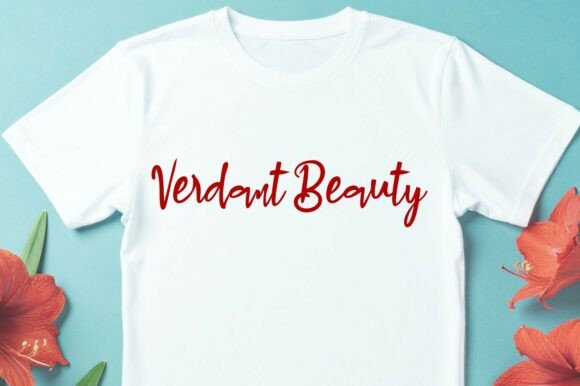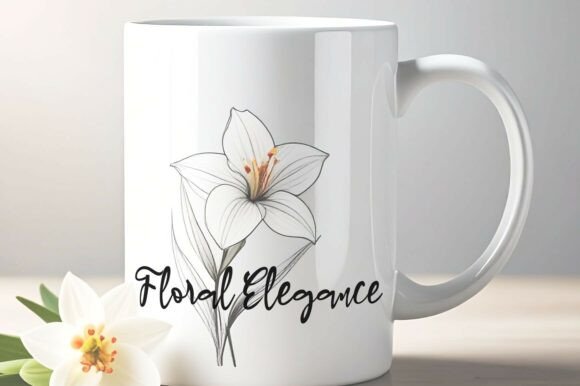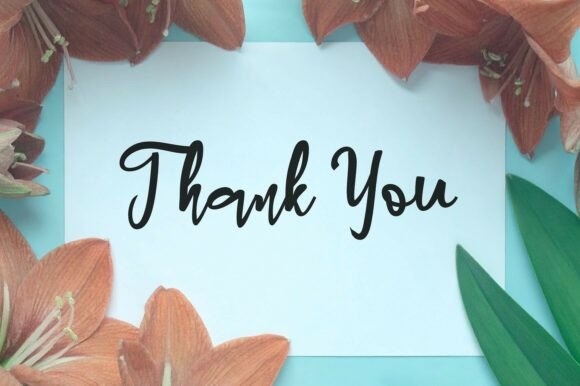
Discover the Elegance of Amaryllis Flower Font: A Beautifully Expressive Script Typeface
The Amaryllis Flower Font is a stunning script typeface that embodies the elegance and fluidity often associated with floral artistry. This beautiful font features dynamic, brush-like strokes with a lively baseline, giving it a playful yet sophisticated hand-drawn quality. In this article, we’ll explore what makes Amaryllis Flower Font unique, its characteristics, and the various uses it’s suited for.
What Makes Amaryllis Flower Font Special?
The Amaryllis Flower Font stands out from other script fonts due to its distinct characteristics. Here are a few reasons why it’s a great addition to any design or crafting project:
- Dynamic & Expressive: The varying stroke thickness and energetic flow of Amaryllis Flower Font make each word come alive, conveying a sense of movement and artistic flair. This feature makes it perfect for designs that require a touch of elegance and sophistication.
- Hand-Drawn Charm: The font’s hand-drawn quality gives it an authentic and personal feel, similar to a meticulously crafted signature or custom lettering. This unique feature sets it apart from generic digital fonts.
- Unique Character: Each letterform in Amaryllis Flower Font has distinct features that give the font a memorable and unique personality. This characteristic makes it an excellent choice for designers and crafters looking to add a touch of individuality to their work.
- Versatile Decoration: While Amaryllis Flower Font is clearly decorative, it maintains a level of legibility that allows it to be used effectively for more than just ornamental purposes. This versatility makes it suitable for a wide range of projects, from greeting cards to branding and packaging.
What is Amaryllis Flower Font Good For?
Amaryllis Flower Font is an excellent choice for various design and crafting projects, including:
- Floral and Botanical Designs: The font’s floral inspiration and elegant feel make it perfect for designs related to gardening, floristry, or botanical art.
- Greeting Cards and Stationery: Amaryllis Flower Font’s playful yet sophisticated quality makes it suitable for creating beautiful greeting cards, invitations, and stationery.
- Branding and Packaging: The font’s unique character and hand-drawn charm make it an excellent choice for branding and packaging designs that require a touch of elegance and sophistication.
- Digital and Print Media: Amaryllis Flower Font can be used in various digital and print media, such as magazines, blogs, and social media graphics, to add a touch of personality and style.
Tips for Using Amaryllis Flower Font
To get the most out of Amaryllis Flower Font, consider the following tips:
- Use it sparingly: Due to its decorative nature, it’s best to use Amaryllis Flower Font sparingly to avoid overwhelming the design.
- Pair it with complementary fonts: Combine Amaryllis Flower Font with simpler fonts to create a balanced and harmonious design.
- Experiment with colors and textures: Amaryllis Flower Font looks great with a variety of colors and textures, so don’t be afraid to experiment and find the perfect combination for your design.
In conclusion, Amaryllis Flower Font is a beautifully expressive and vibrant script typeface that can add a touch of elegance and sophistication to any design or crafting project. Its unique characteristics, versatility, and hand-drawn charm make it an excellent choice for designers and crafters looking to create stunning and memorable work. Whether you’re working on a floral design, greeting card, or branding project, Amaryllis Flower Font is sure to impress.